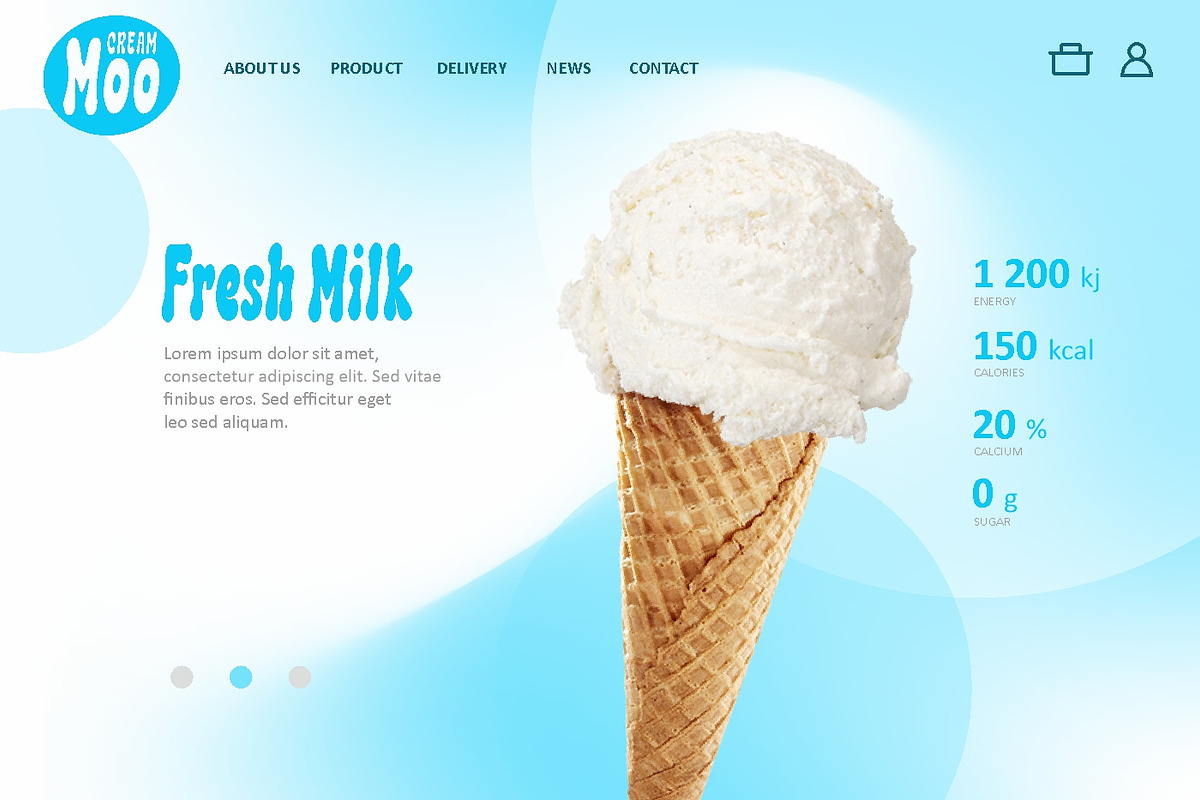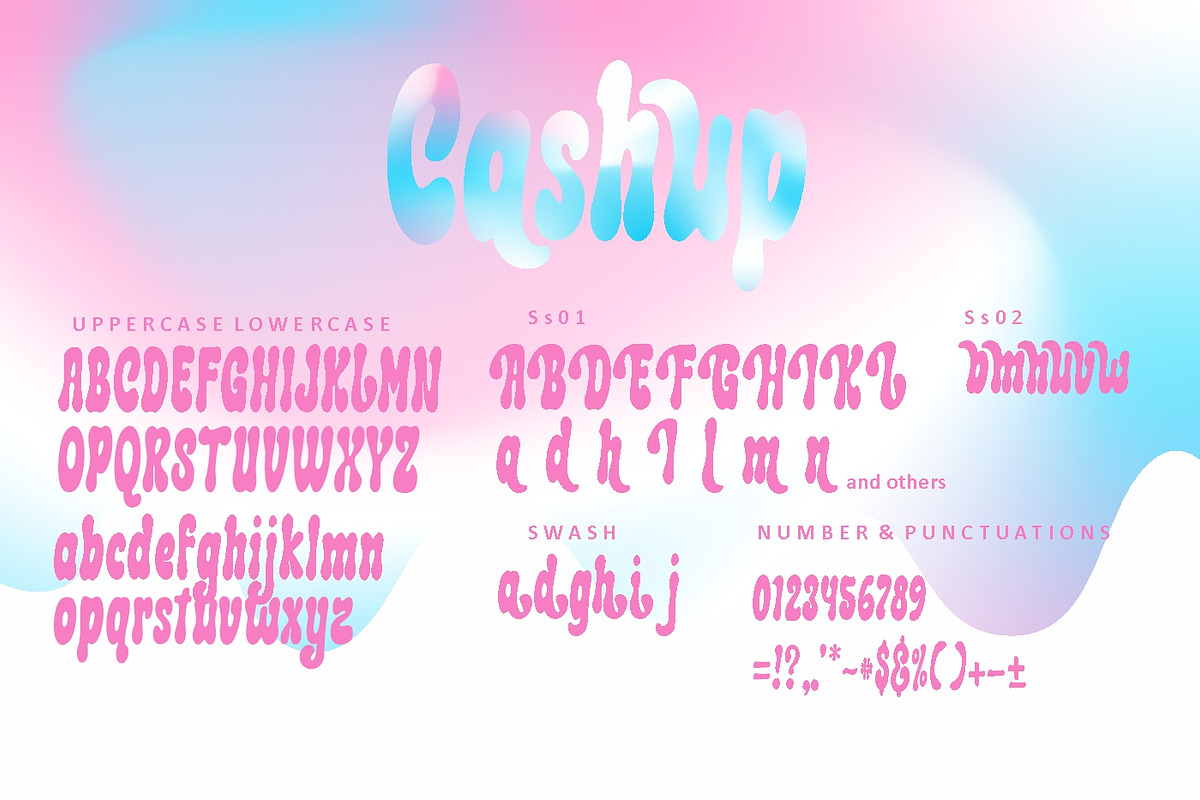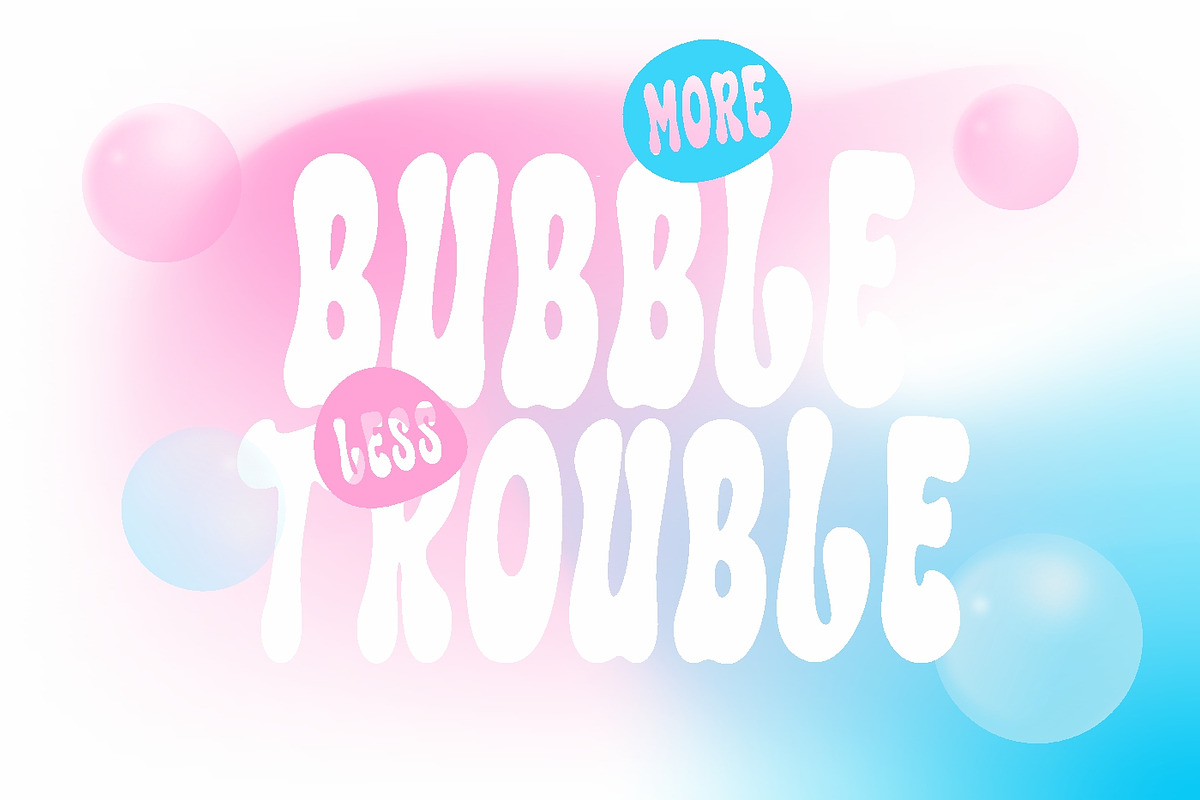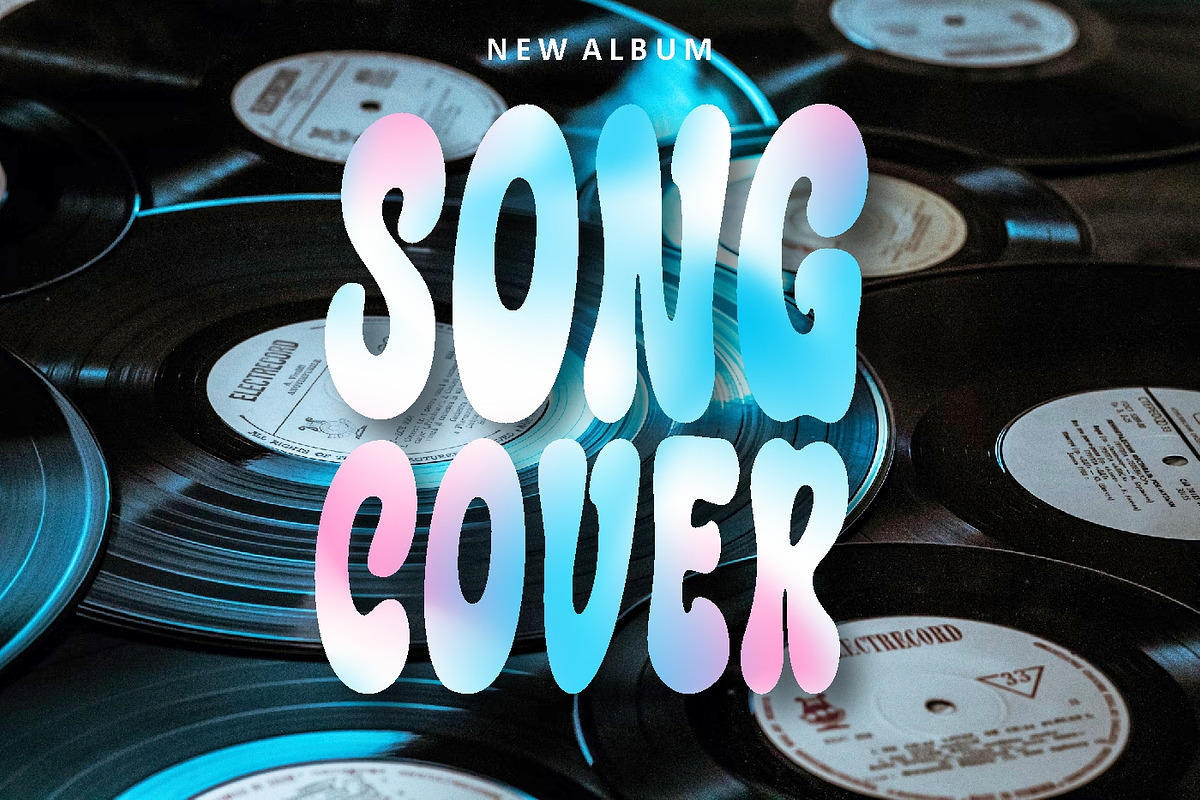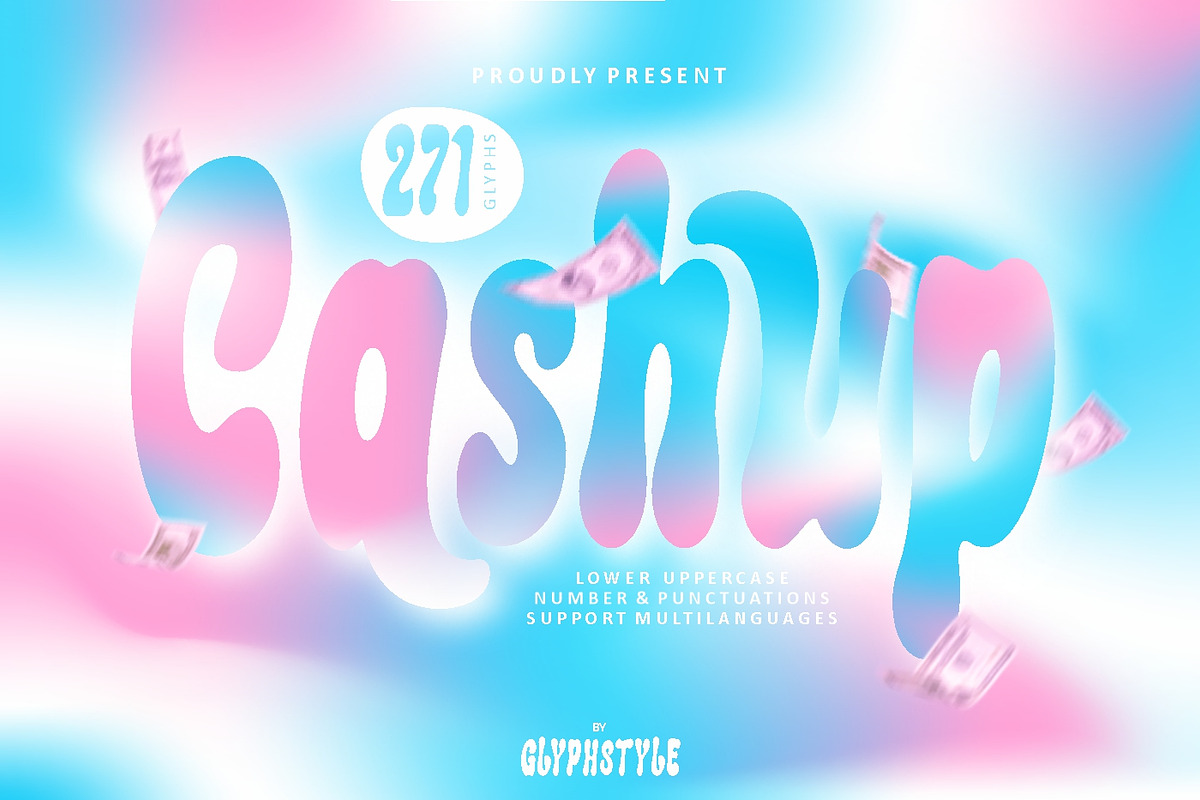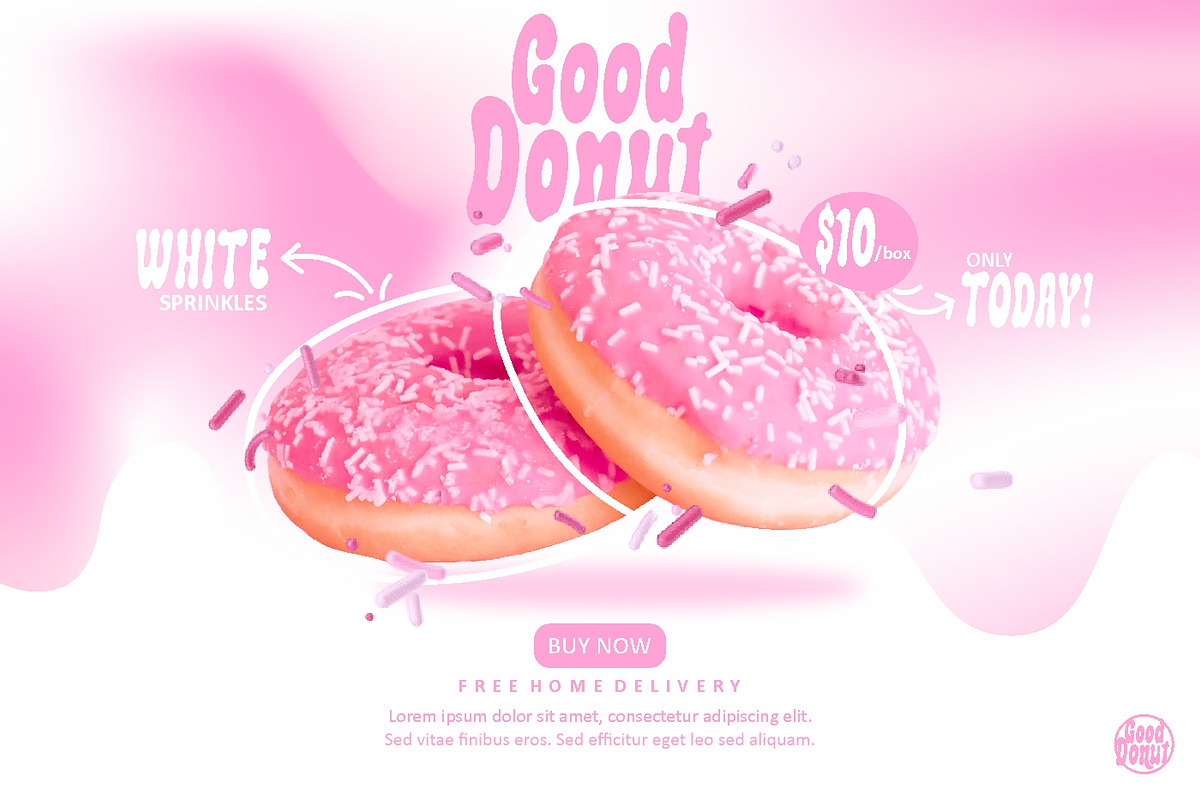
Cashup Bubble
Cashup is a bubble-shaped display font. With smooth curves, it creates a beautiful font shape. Several stylistics are also available to increase designer creativity
Cashup is perfect for branding projects, logos, wedding designs, social media posts, advertisements, product packaging, product designs, labels, photography, watermarks, invitations, stationery, and any project that requires a display bubble font.
- Font feature
Uppercase, Lowercase, Numerals & Punctuations, multilanguage, styllistic, swash,